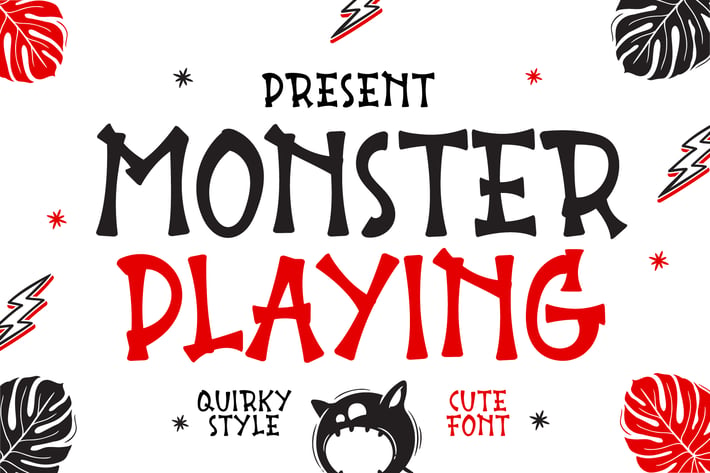
Monster Playing - Display Font
Monster Playing is a Cute Display Sans that will make your designs look modern, unique and fun.
Itβs perfect for labels, quotes, posters, DIY projects, branding, packaging, greeting cards, websites, photography overlays, signs, window art, scrapbooking, tags and so much more!